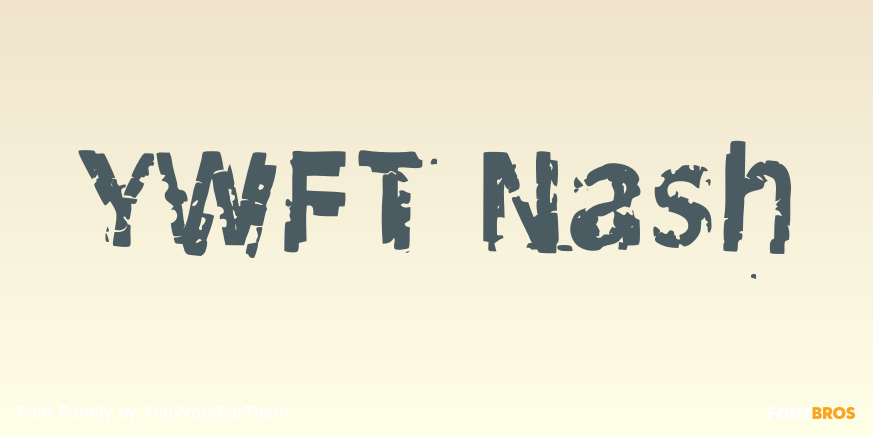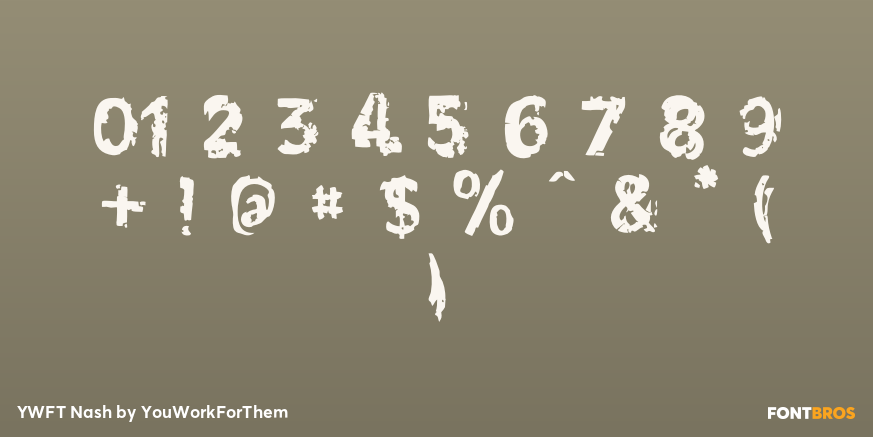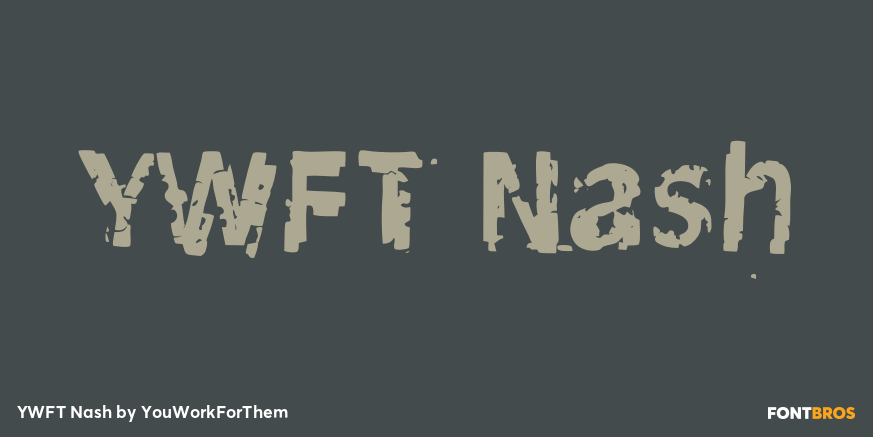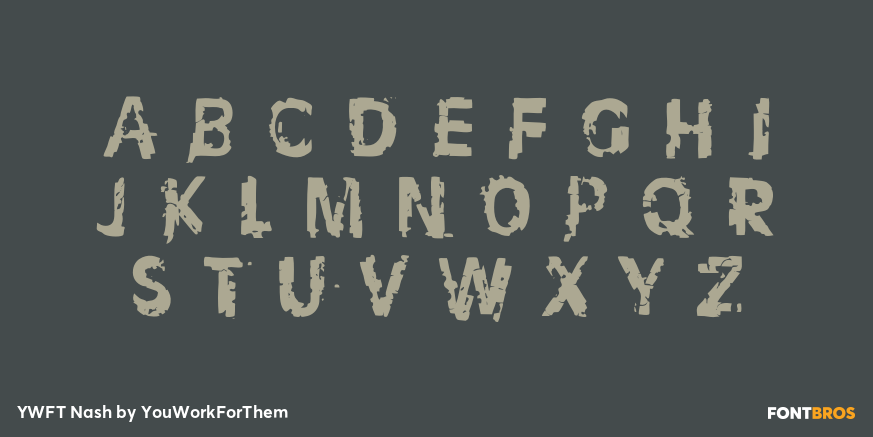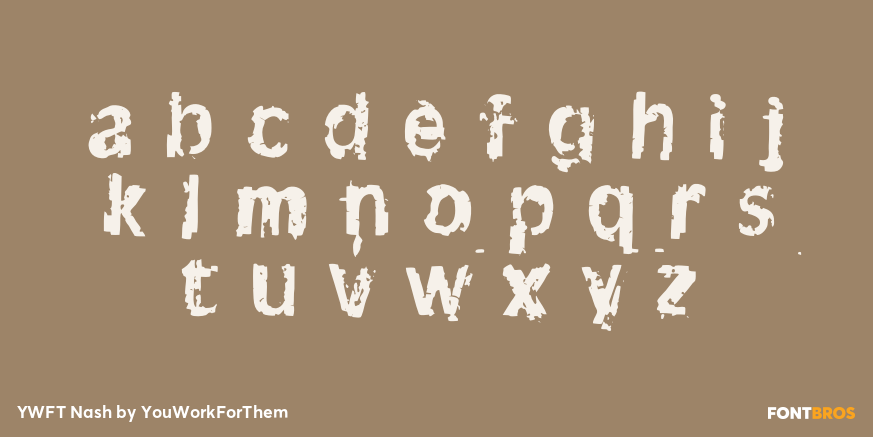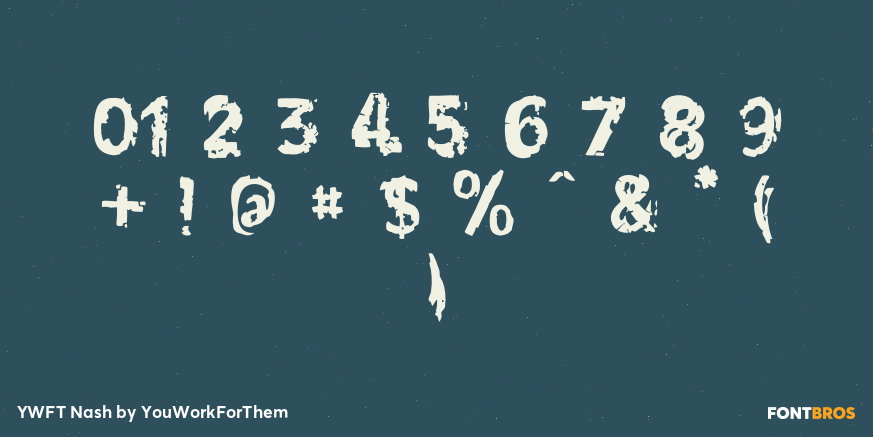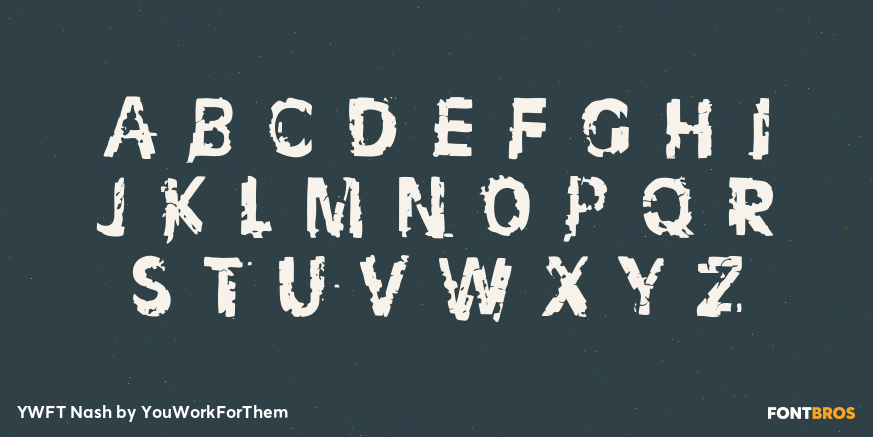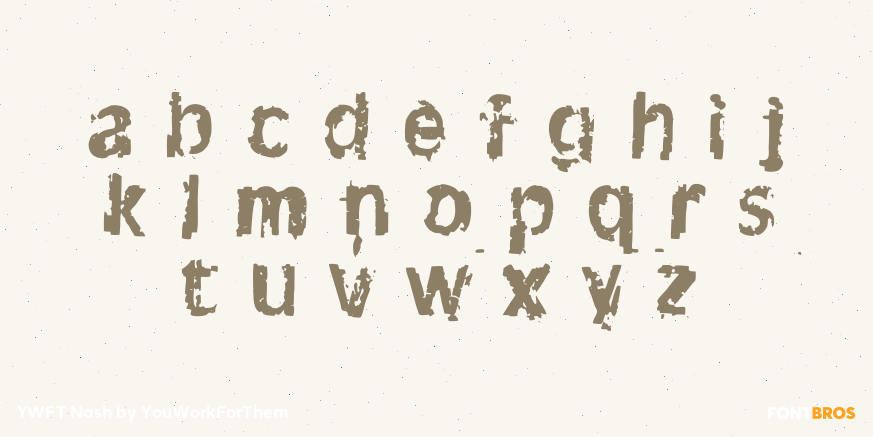
YWFT Nash
Font Family by YouWorkForThem
YWFT Nash was inspired by the grunge movement (design and music) of the 1990s. Nasty, busted, shredded and ripped, this is one gnarly font that perfectly captures the essence of trashed type. Ideally suited for off-road, extreme sports design jobs, YWFT Nash can also work well in a variety of situations where something broken and rugged is required. YWFT Nash was converted to Opentype format in 2010. Designed exclusively by Michael Cina and YouWorkForThem.